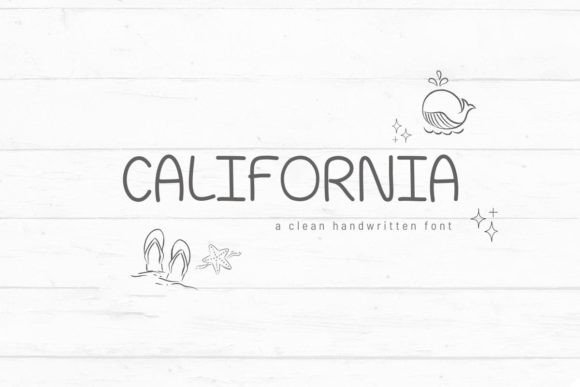
The Ultimate Guide to California Font: Adding a Touch of Fun and Friendliness to Your Designs
I’ll never forget the time I was working on a design project for a client’s wedding invitation. I had a clear vision of what I wanted to create, but something was missing – the perfect font. I scoured the internet, tried out countless options, but none seemed to capture the playful, carefree vibe I was going for. That’s when I stumbled upon California Font, and it was love at first sight! ✨ In this article, I’ll share my experience with this amazing font, its unique features, and how to make the most of it in your designs.
An Honest Review of California Font
What I Love About California Font
- ✨ California Font is a beautiful, handwritten font that’s perfect for adding a personal touch to your designs.
- ✅ Its unique charm and character make it stand out from more traditional fonts.
- 💕 The font is incredibly versatile and can be used for a wide range of design projects, from wedding invitations to social media graphics.
- 🎉 California Font is easy to read and understand, making it perfect for designs that require a clear message.
While California Font is an amazing font, it’s not perfect. Here are a few things to keep in mind:
- ⚠️ The font can be a bit tricky to use at very small sizes, so it’s best to use it at larger sizes (14pt or larger) for optimal readability.
- 🤔 Some of the font’s more intricate details can get lost when used on smaller projects, such as business cards or social media avatars.
The Backstory of California Font
California Font was designed by a talented type designer who wanted to capture the laid-back, carefree spirit of California. The font is inspired by the state’s iconic surf culture, sunny beaches, and vibrant cities. With its unique charm and character, California Font is perfect for designs that require a touch of West Coast cool.
Q: What is California Font?
A: California Font is a fun and friendly handwritten font that’s perfect for adding a personal touch to your designs.
Q: What can I use California Font for?
A: California Font is incredibly versatile and can be used for a wide range of design projects, from wedding invitations to social media graphics.
Q: Is California Font easy to read?
A: Yes, California Font is easy to read and understand, making it perfect for designs that require a clear message.